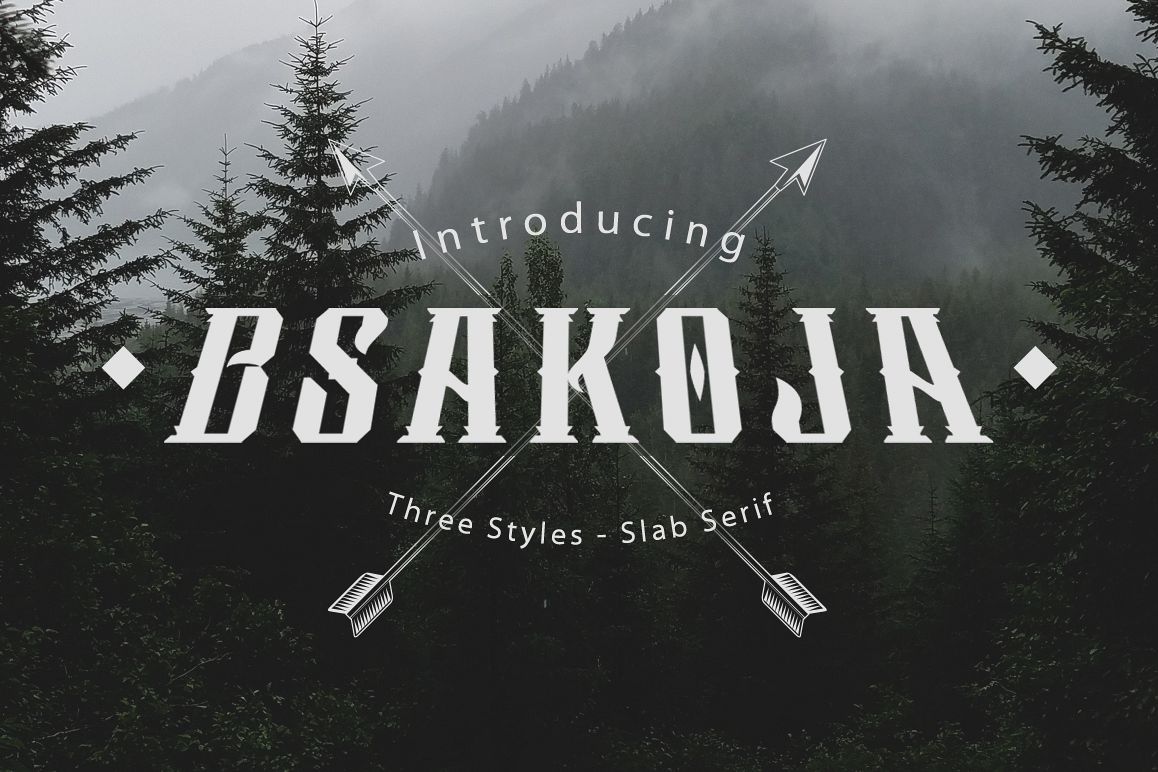
Bsakoja Typeface
Bsakoja Regular
Bsakoja Curvy
Bsakoja Stencil
Slab Serif typeface, comes with 3 different styles : Regular, Curvy and Stencil.
The flexible shapes that you can apply in vintage, minimalism or modern
style. The curvy style is recommended for your print out purpose.
Overall, good detail for digital or any prints like on tees, sticker,
poster, billboard or apparel.
Especially made for your headline.